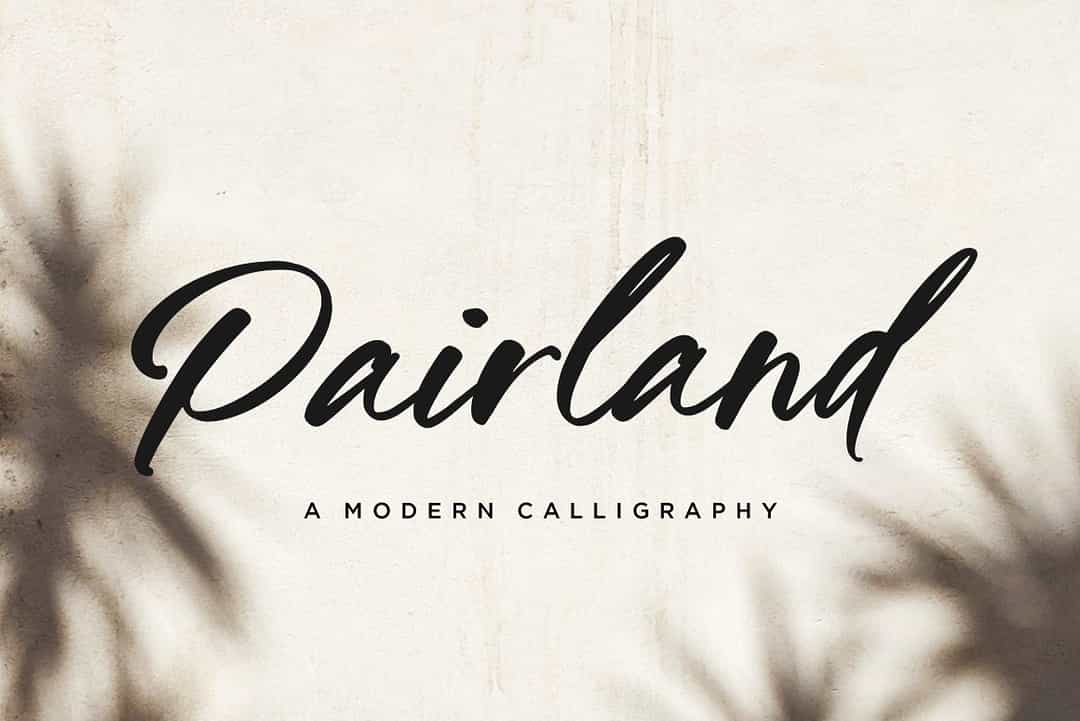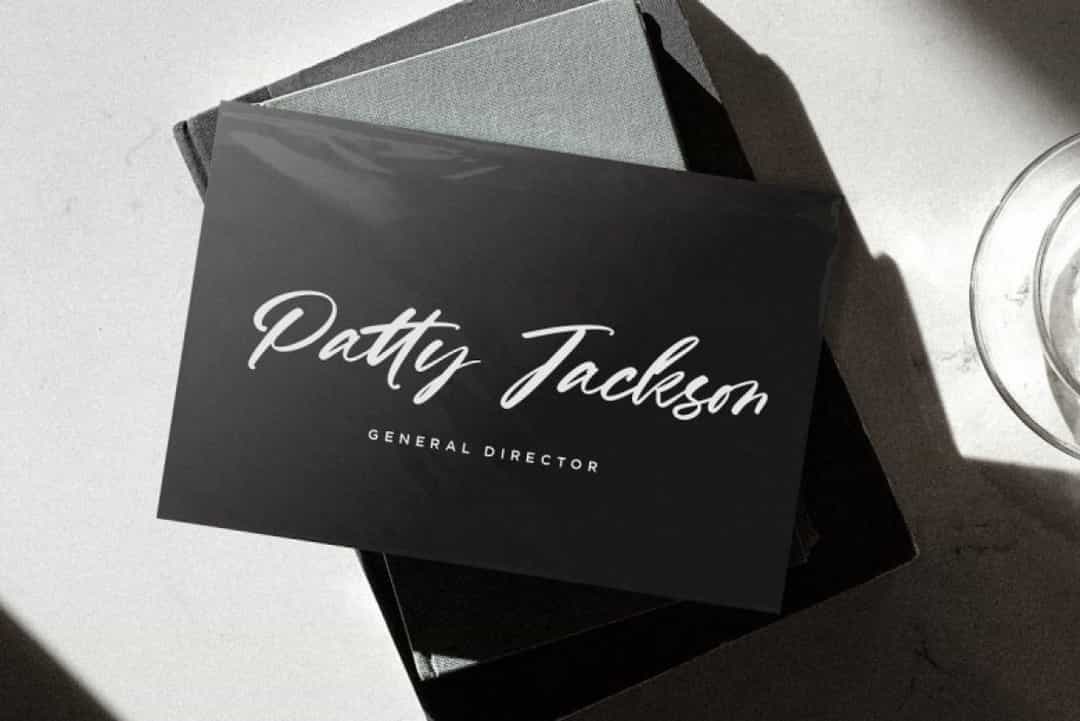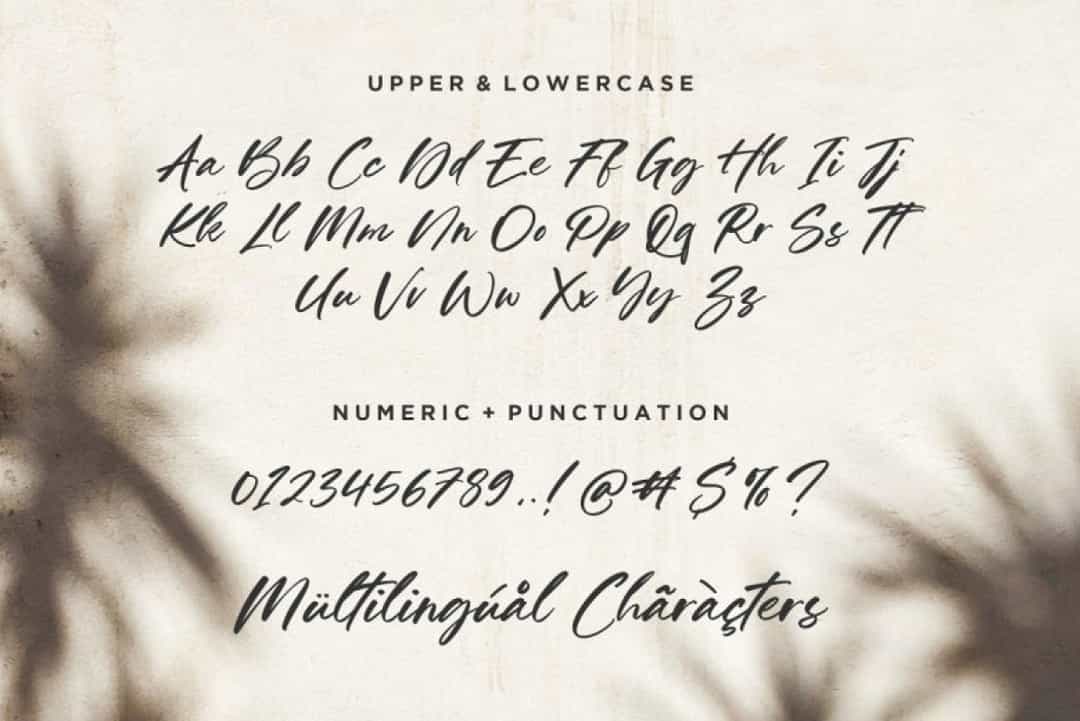
Discover Pairland Font, part of the Calligraphy Handwritten collection—a versatile and unique font perfect for adding a personal touch to your projects. Download it for free and enjoy crafting designs with style, from invitations to social media posts. This font is available exclusively for personal use, giving you the freedom to create without limits. Unlock your creativity with Pairland Font today!
Pairland Modern Caligraphy Font is designed with great care to bring a personal touch to your design work. Crafted with precision, its details have been considered in its design process. Pairland can be utilized across many tasks from invitations, branding and logo creation all the way through to social media posts – its contemporary handwritten style will make an impressionful first impression!